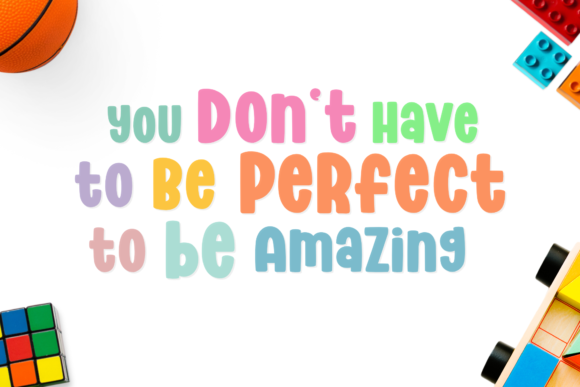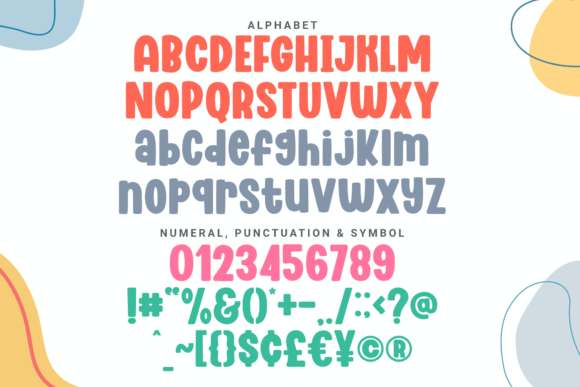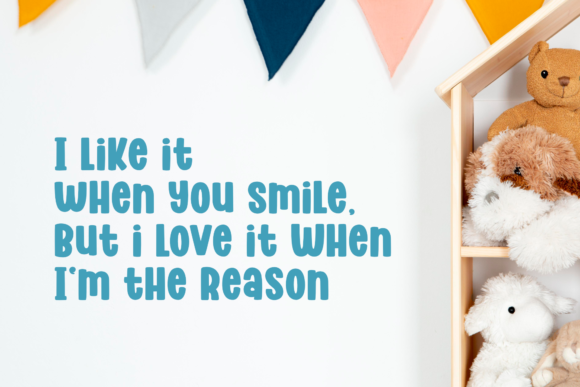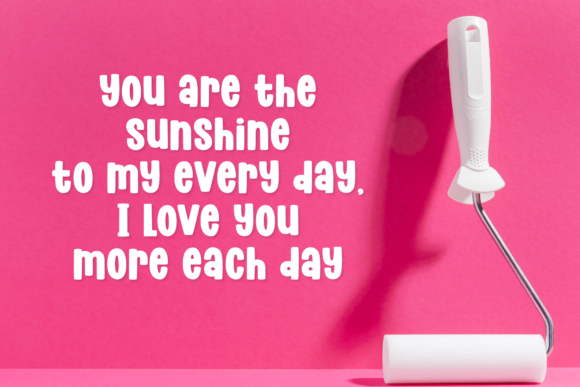
Introduction to Mighty Friday Font
Have you ever found yourself stuck in a creative rut, unable to bring your vision to life? You’ve poured over design resources, but nothing seems to capture the playful essence you’re aiming for. That’s where the Mighty Friday Font comes in – a delightful display font that will breathe new life into your designs.
As a valuable addition to any design arsenal, the Mighty Friday Font is a game-changer for creative projects. Its high-quality, free download makes it an accessible resource for designers of all levels, while its transparent background allows for seamless integration into any design.
Whether you’re crafting a logo, branding, or promotional materials, the Mighty Friday Font is sure to bring a joyful touch to your work. With its cute and playful personality, it’s the perfect design resource to make your creative ideas stand out.
Key Features of Mighty Friday Font
- High-quality design resource ideal for creative projects, offering a unique and eye-catching style.
- Comes with a transparent background, allowing for easy customization and seamless integration into various design elements.
- Features a bold, modern design with a large x-height, making it perfect for headings, titles, and other prominent text elements.
Honest Review: Mighty Friday Font
As a designer, I’m always on the lookout for high-quality design resources that can elevate my creative projects. Recently, I had the chance to try out the Mighty Friday Font, and I’m excited to share my honest review.
What works well: ✨ The Mighty Friday Font is a versatile font that works beautifully for both digital and print projects. It’s got a modern, yet friendly vibe that makes it perfect for a wide range of creative endeavors. The font is available for free download, which is a huge plus for designers on a budget.
What doesn’t work so well: ⚠️ One of the limitations of the Mighty Friday Font is that it’s not suitable for use in situations where a transparent background is required. Additionally, the font is not available in as many weights as I would have liked.
Overall impression: I was pleasantly surprised by the quality of the Mighty Friday Font. While it may not be perfect, it’s definitely a great addition to any designer’s toolkit. If you’re looking for a high-quality font for your creative project, I’d definitely recommend checking it out.
- Modern, friendly vibe
- Perfect for digital and print projects
- Not suitable for transparent background use
- Only a few available weights
How to Use Mighty Friday Font
The Mighty Friday Font is a high-quality design resource ideal for creative projects. This font offers a unique and stylish look, perfect for various applications.
The Mighty Friday Font is suitable for various creative projects, including:
To get the most out of the Mighty Friday Font:
- Use it in conjunction with a transparent background for a clean and modern look.
- Experiment with different font sizes and colors to achieve a unique design.